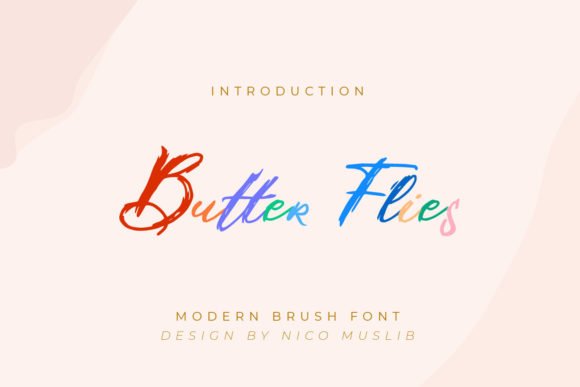
Discover the Magic of Handwritten Charm
Have you ever stumbled upon a font that makes your design come alive? For me, that moment happened when I laid eyes on Butter Flies Font. Its unique, modern brushed handwritten style instantly caught my attention, and I couldn’t wait to see it in action.
Butter Flies Font is a game-changer for designers looking to add a personalized touch to their projects. Whether it’s a wedding invitation, a heartfelt thank you card, or a logo that screams personality, this font is the perfect companion. Its versatility and charm make it a valuable asset for any designer looking to elevate their work.
Butter Flies Font Key Features
- Font Family: A unique, handwritten font with a playful and whimsical touch.
- Unique Characteristics: Features intricate, swirling flourishes and subtle texture, giving it a distinctive and eye-catching look.
Designer Review: Butter Flies Font
First impressions are everything, and the Butter Flies Font certainly makes a statement. I appreciate the playful and whimsical feel it brings to any design. ✨ The delicate, hand-drawn style is reminiscent of traditional illustrations, and I think it’s particularly well-suited for children’s books, greeting cards, or any project that needs a touch of sweetness.
- Unique and creative style that sets it apart from more common fonts
- Perfect for projects that require a lighthearted and playful tone
- Wide range of languages supported, making it a great option for multilingual designs
However, I do have some concerns about the font’s limitations. ⚠️ While the Butter Flies Font is lovely for short blocks of text, I’ve noticed it can become difficult to read at larger font sizes. Additionally, the font’s irregularities and hand-drawn feel may not be suitable for formal or professional designs.
Overall, I think the Butter Flies Font is a delightful addition to any designer’s toolkit. While it may not be the best choice for every project, it’s certainly a great option for those looking to add some whimsy and personality to their designs.
Use “Butter Flies Font” for:
1. Creating whimsical and playful designs.
2. Adding a touch of elegance and sophistication to your typography.
3. Designing children’s books, party invitations, or other creative projects.